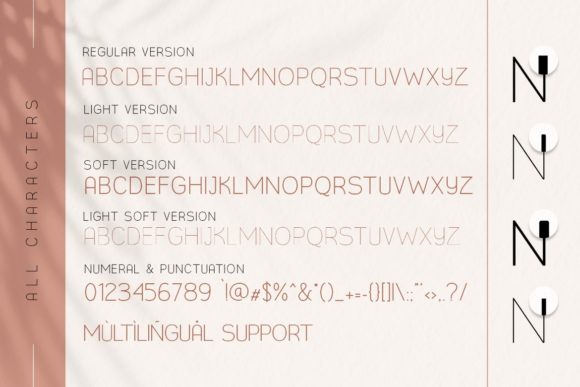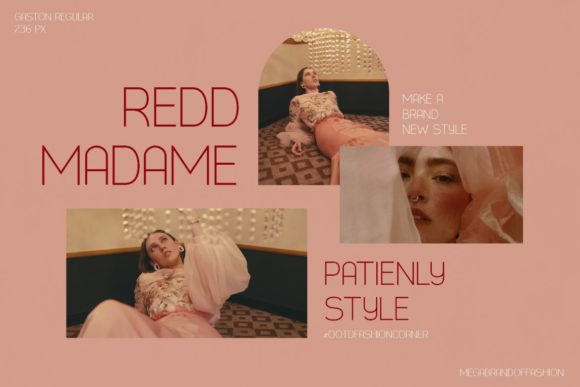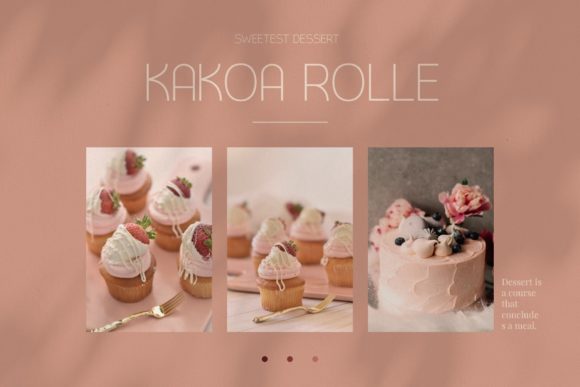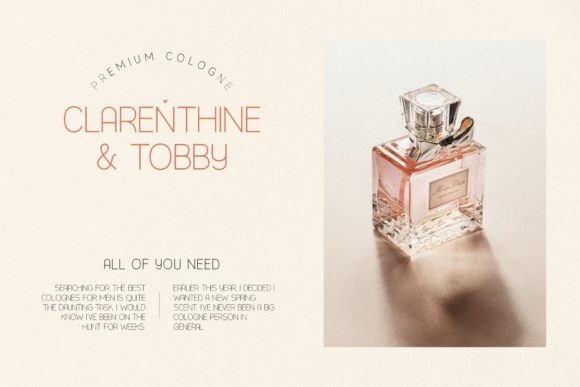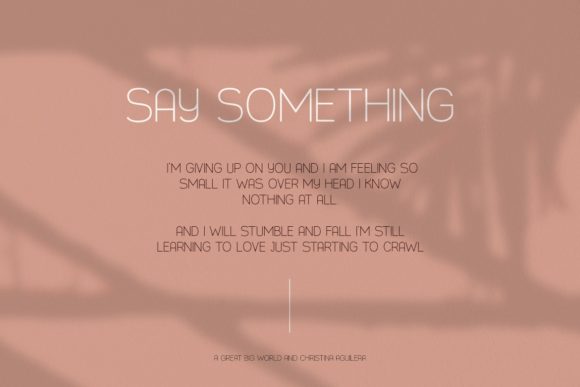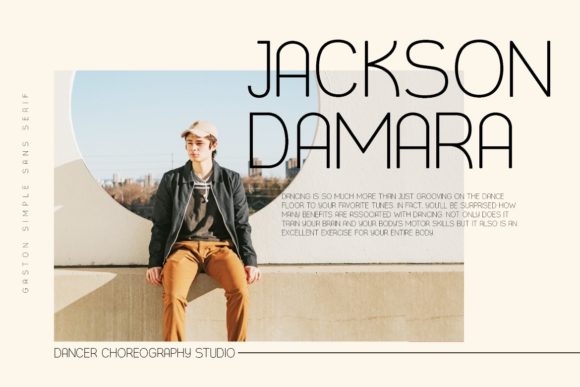
The Designer’s Delight: Gaston Font
I’ll never forget the time I was working on a project for a trendy boutique hotel. My client wanted a modern, sleek look that would appeal to young travelers. I spent hours browsing through font libraries, but nothing seemed quite right. That was when I stumbled upon Gaston – a minimal and neat sans serif font that instantly caught my eye. ✨
It was love at first sight! Gaston effortlessly elevated my design, adding a touch of sophistication and elegance. I knew right then and there that I had to share this gem with my fellow designers and creatives. In this article, I’ll give you the lowdown on Gaston Font, its features, and how to make the most of it in your projects.
An Honest Review of Gaston Font
What I Love About Gaston Font
- ✅ Clean and Minimal Design: Gaston’s sleek lines and simple curves make it perfect for a wide range of projects, from branding to advertising.
- ✨ Highly Versatile: This font can easily be matched with an incredibly large set of projects, making it a great addition to your font library.
- ✅ Easy to Read: Gaston’s clear and concise design ensures that your text is always legible, even at small font sizes.
While Gaston Font is an excellent choice, it’s not without its limitations. ⚠️ Some users may find that:
- 🤔 Limited Character Set: Gaston may not have an extensive character set, which could limit its use in certain projects that require a wide range of special characters.
- ⚠️ Not Suitable for Body Text: While Gaston is great for headings and titles, it may not be the best choice for body text due to its minimalist design.
- Experiment with Gaston’s OpenType features, such as Stylistic Alternates, to add some personality to your text.
The Backstory of Gaston Font
Gaston Font was designed with the modern designer in mind. Its creator, a talented typographer, aimed to craft a font that was both clean and elegant, yet versatile enough to be used in a wide range of projects. 💡
With Gaston, the designer sought to create a font that would inspire creativity and add a touch of sophistication to any design. And, judging by its popularity, it’s clear that they’ve succeeded! 🎉
Q: What type of projects is Gaston Font best suited for?
A: Gaston Font is perfect for a wide range of projects, including branding, advertising, packaging, and digital design.
Q: Is Gaston Font available in different weights and styles?
A: Yes, Gaston Font comes in a range of weights and styles, making it easy to use for both headings and body text.
A: Absolutely! Gaston Font is perfect for web design and can be used on your website or blog to add a touch of elegance and sophistication.